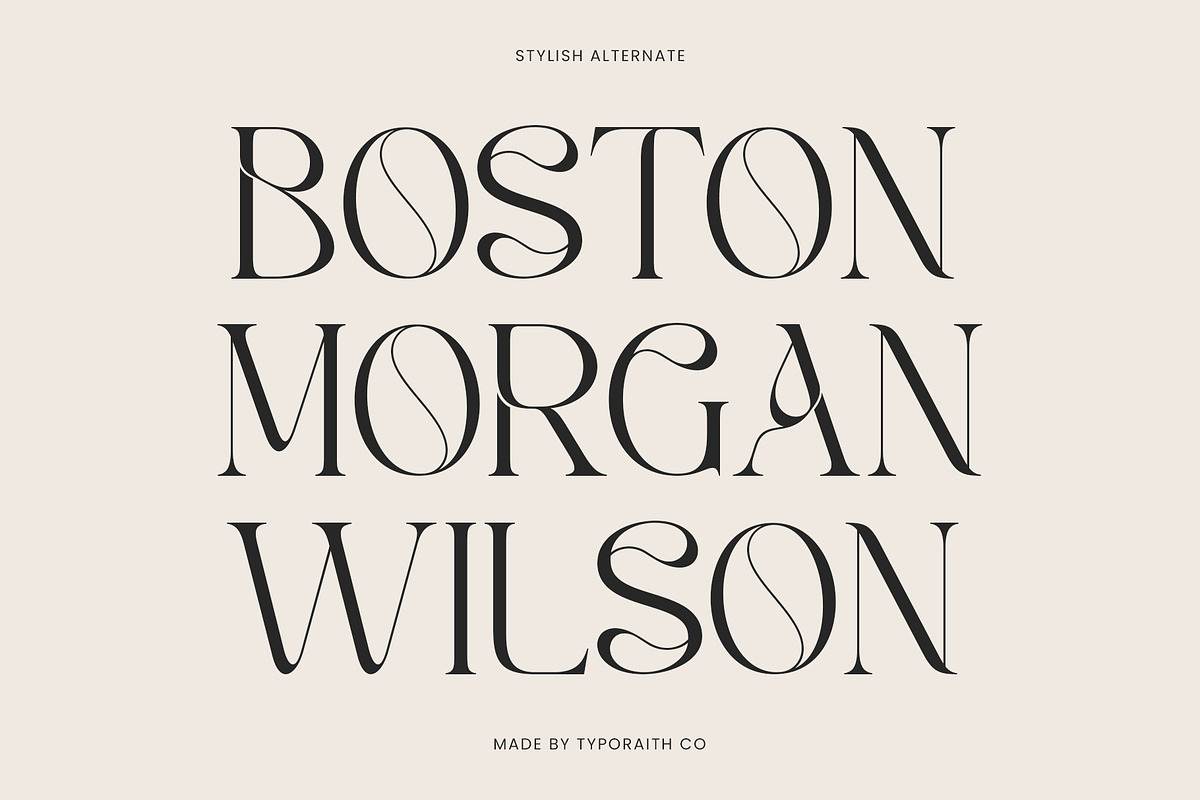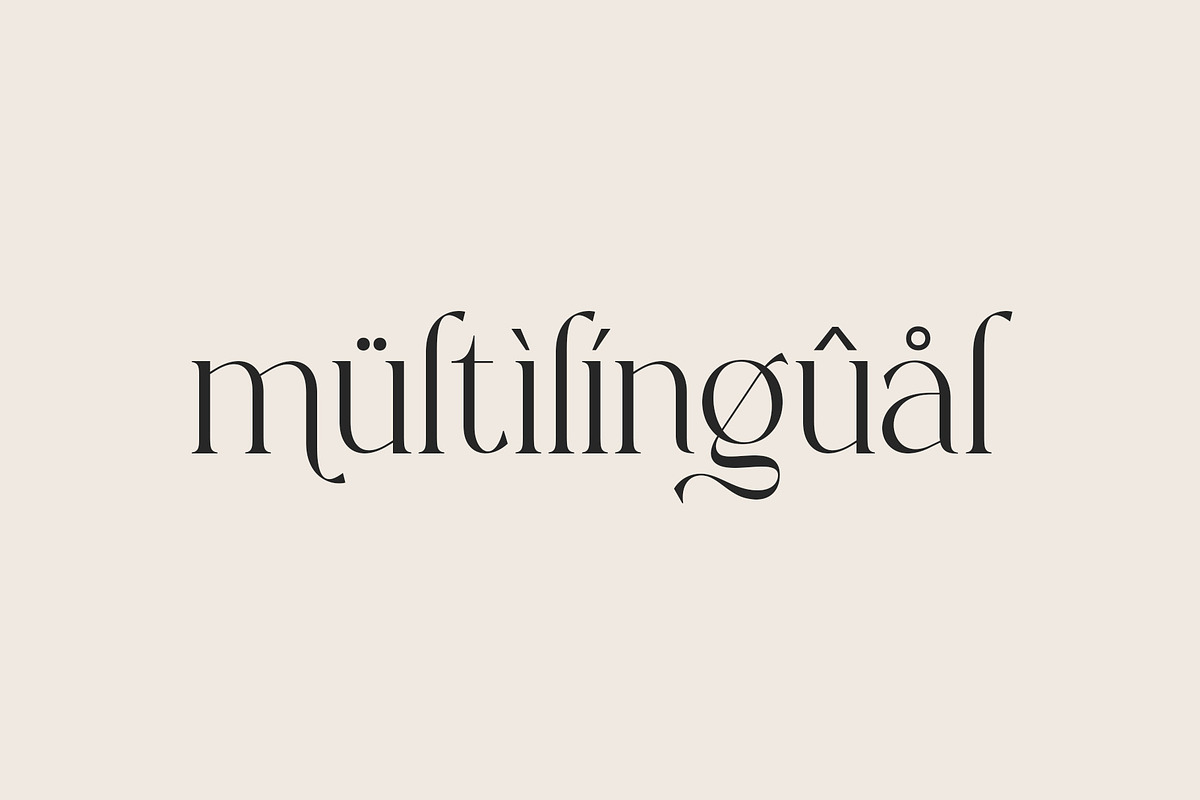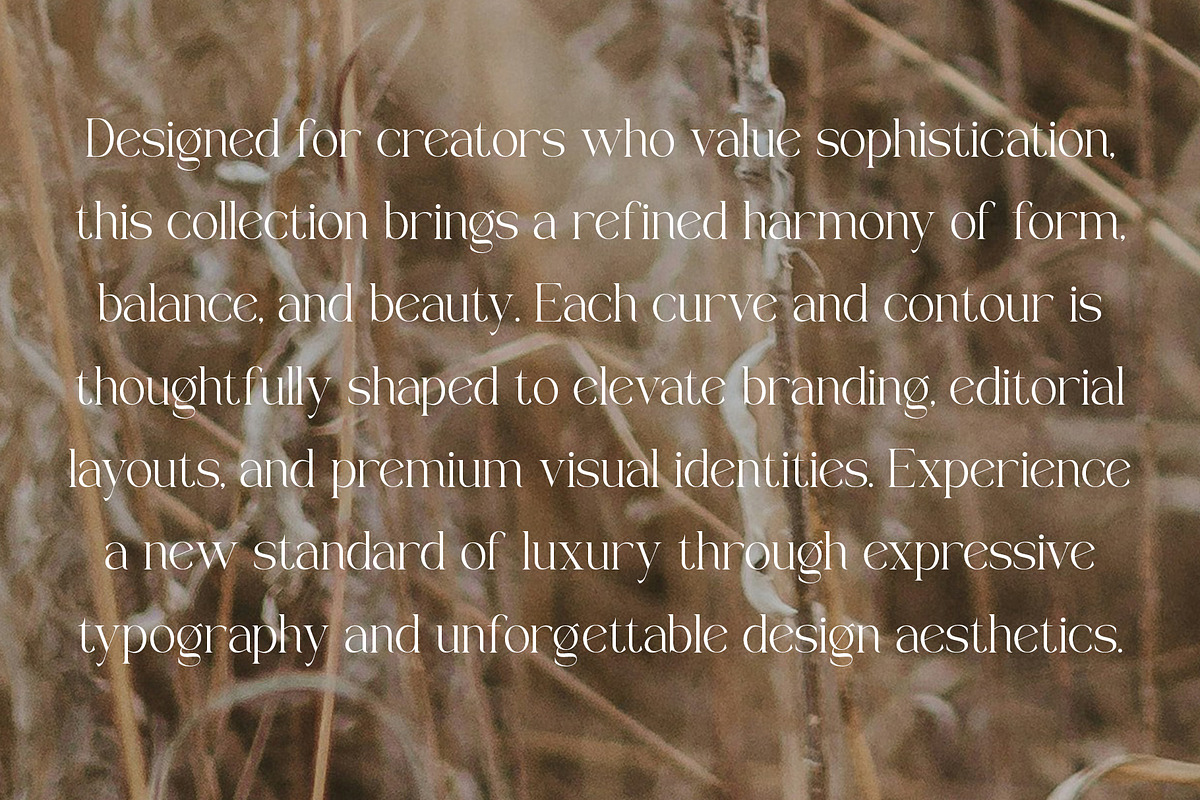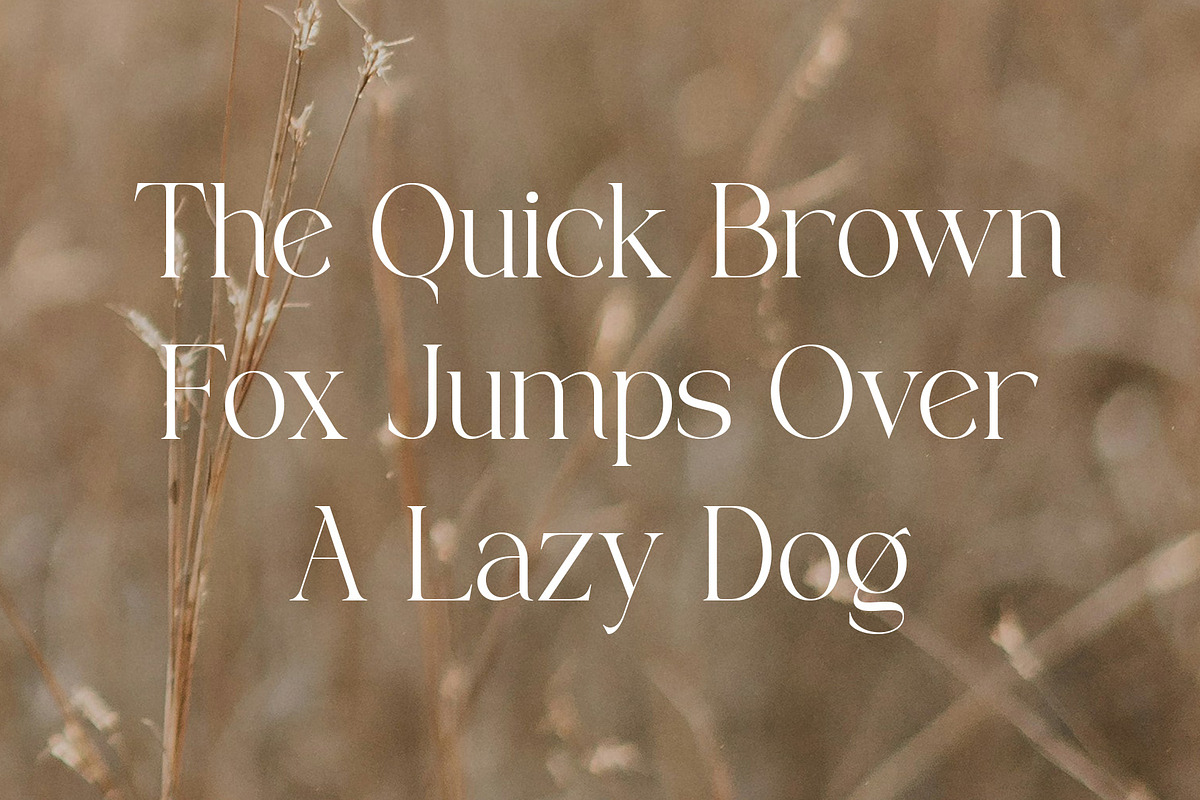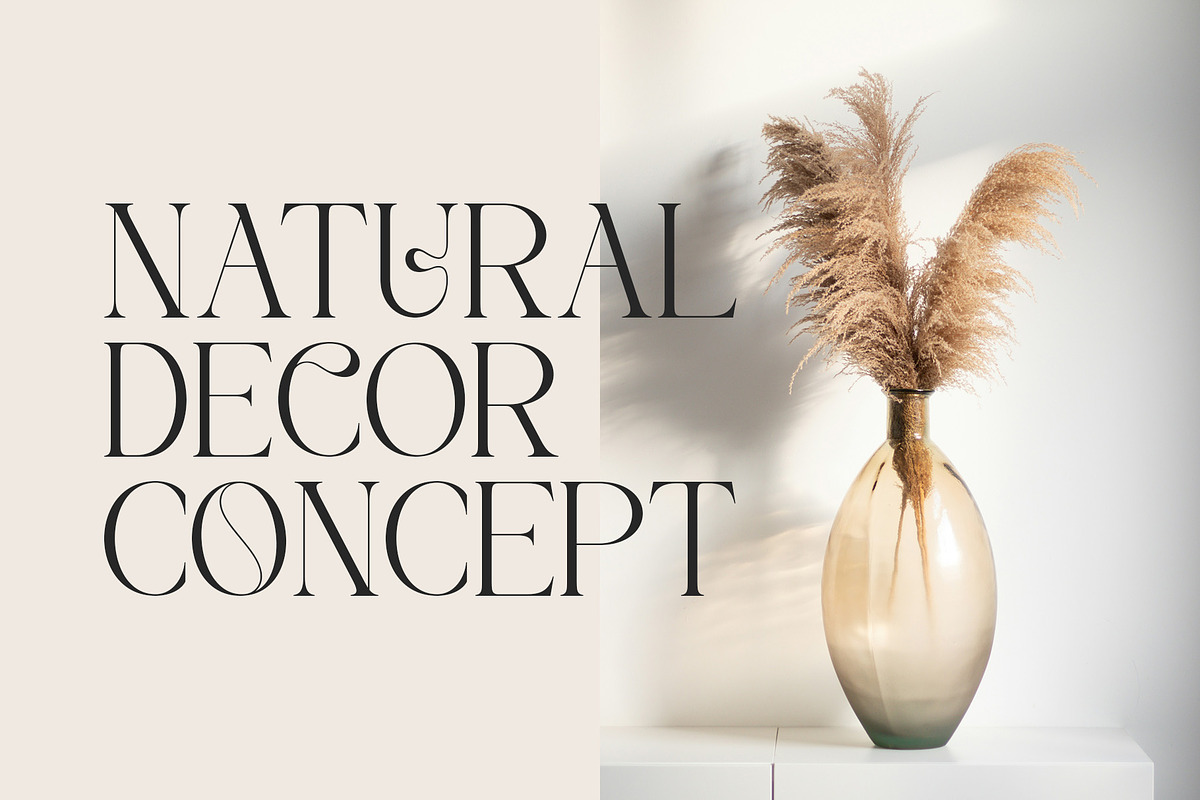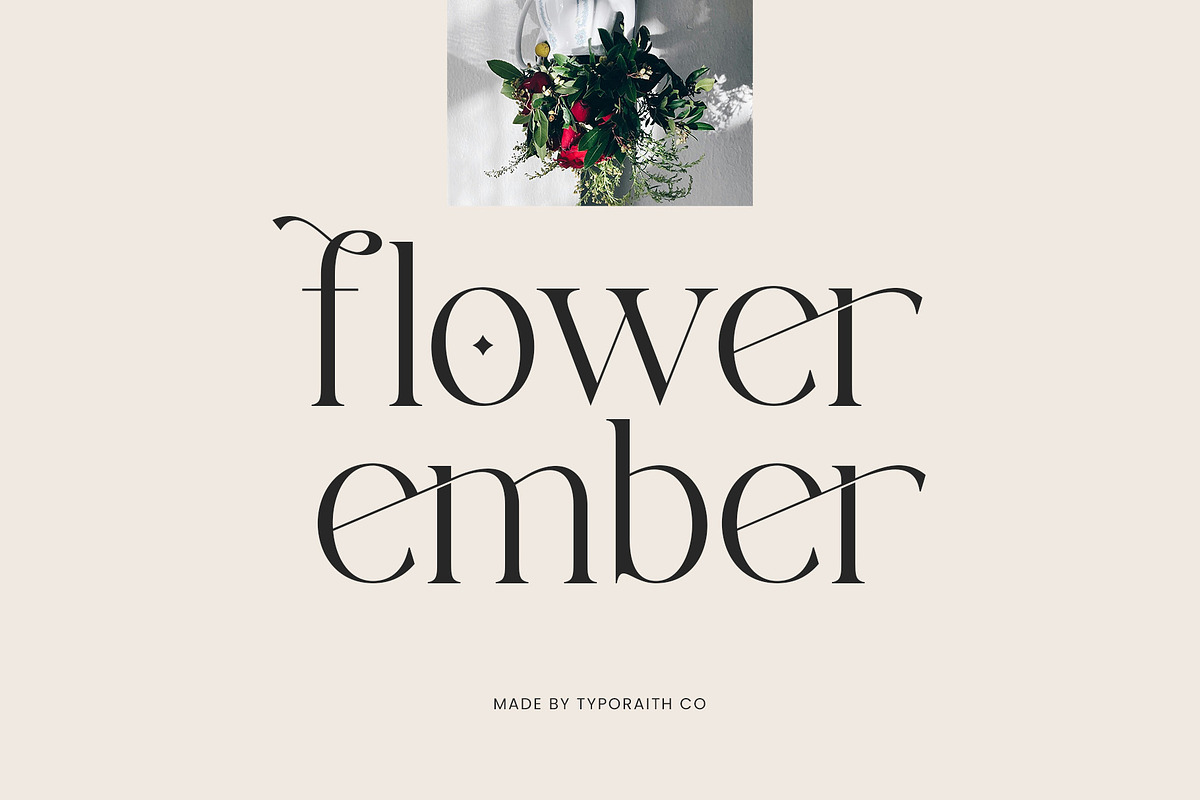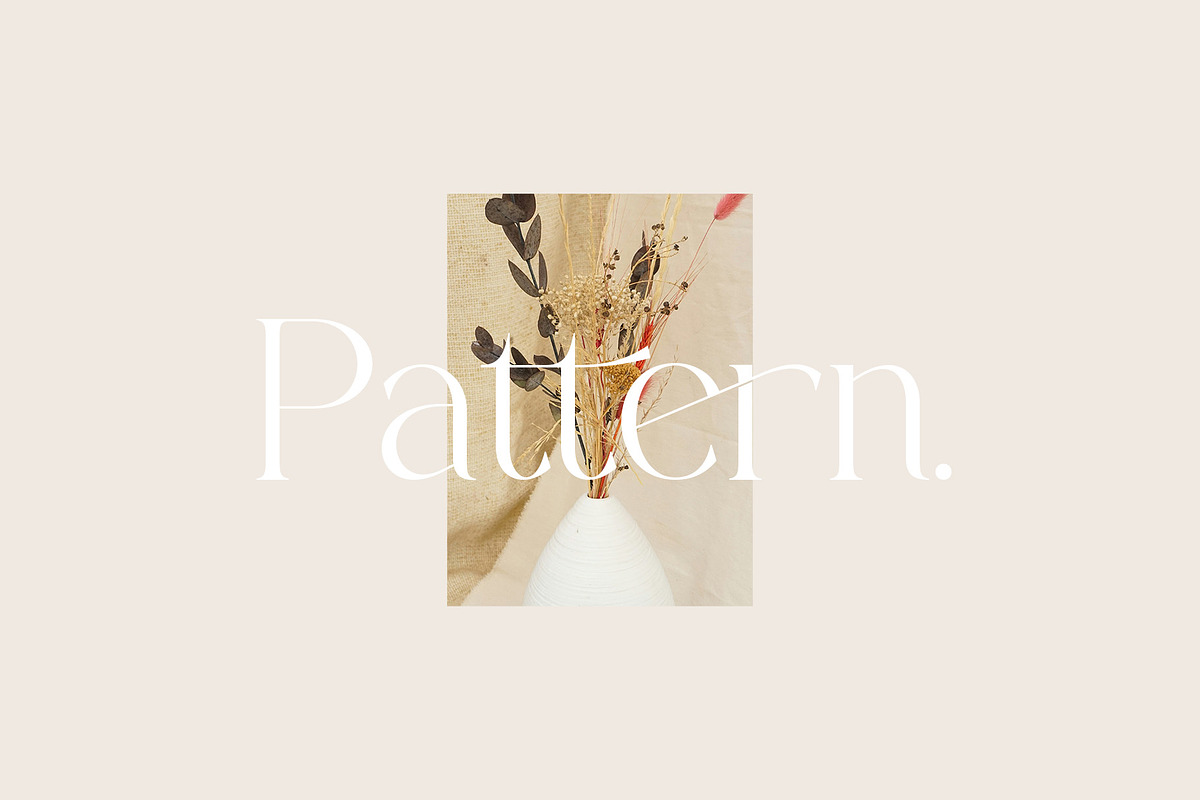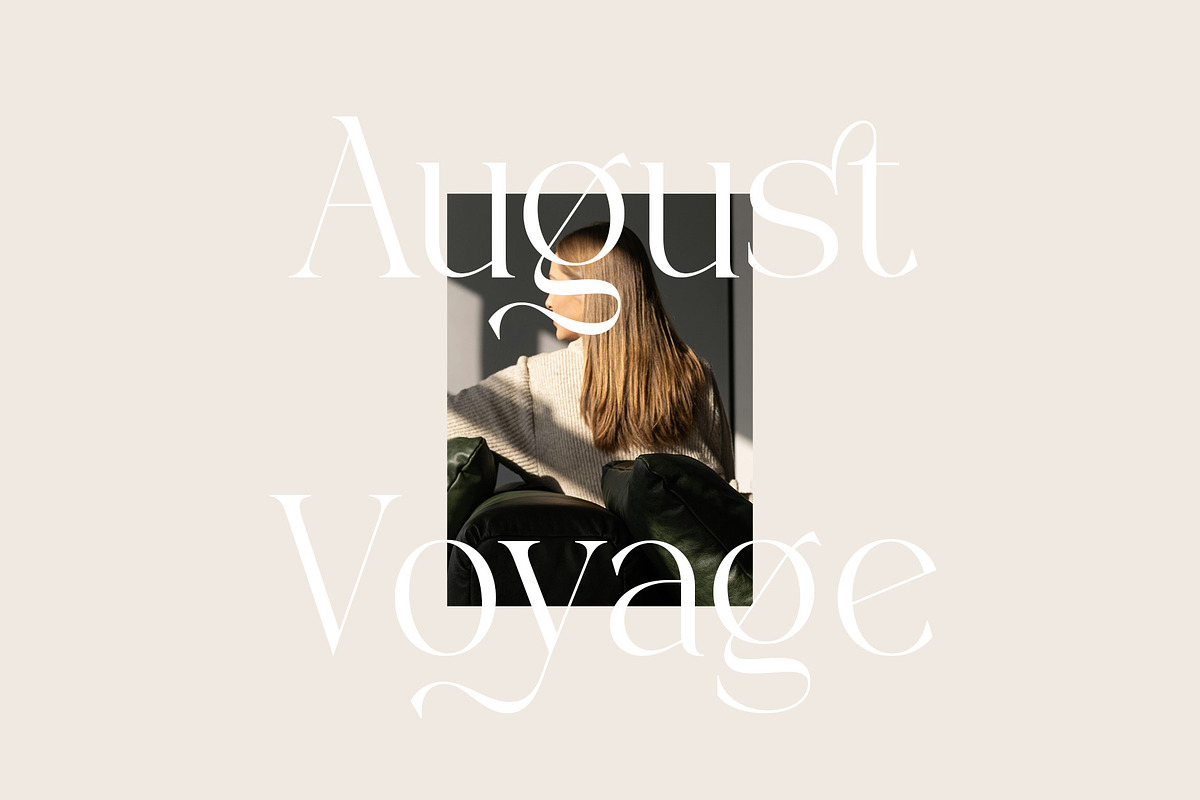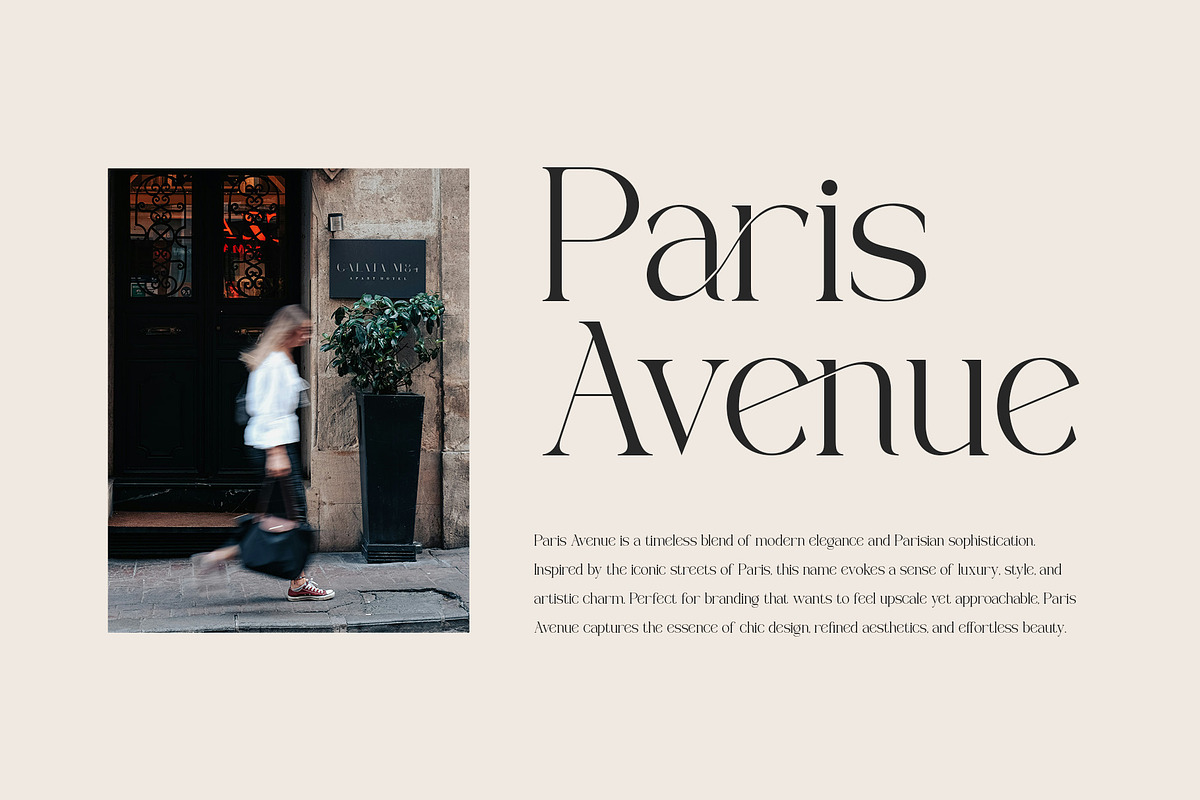
Galem | Elegant Serif
Galem is a modern serif font crafted with a touch of elegance and high-end aesthetics. Every curve and detail is designed to deliver a luxurious, refined, and professional look—ideal for premium branding, editorial layouts, logos, wedding invitations, and various creative projects.
With its graceful thin strokes and strong serif structure, Galem brings a timeless yet contemporary character to any design. It also includes beautiful ligatures and alternates that make your typography look more artistic and exclusive.
- Branding & Logo Design
- Luxury Packaging
- Editorial & Magazine Layouts
- Wedding Invitations & Stationery
- Social Media Branding
- High-end Product Display
Elevate your visual projects with a typeface that embodies modern elegance. Galem is the perfect choice for designers who want to bring a premium, sophisticated touch to their work.